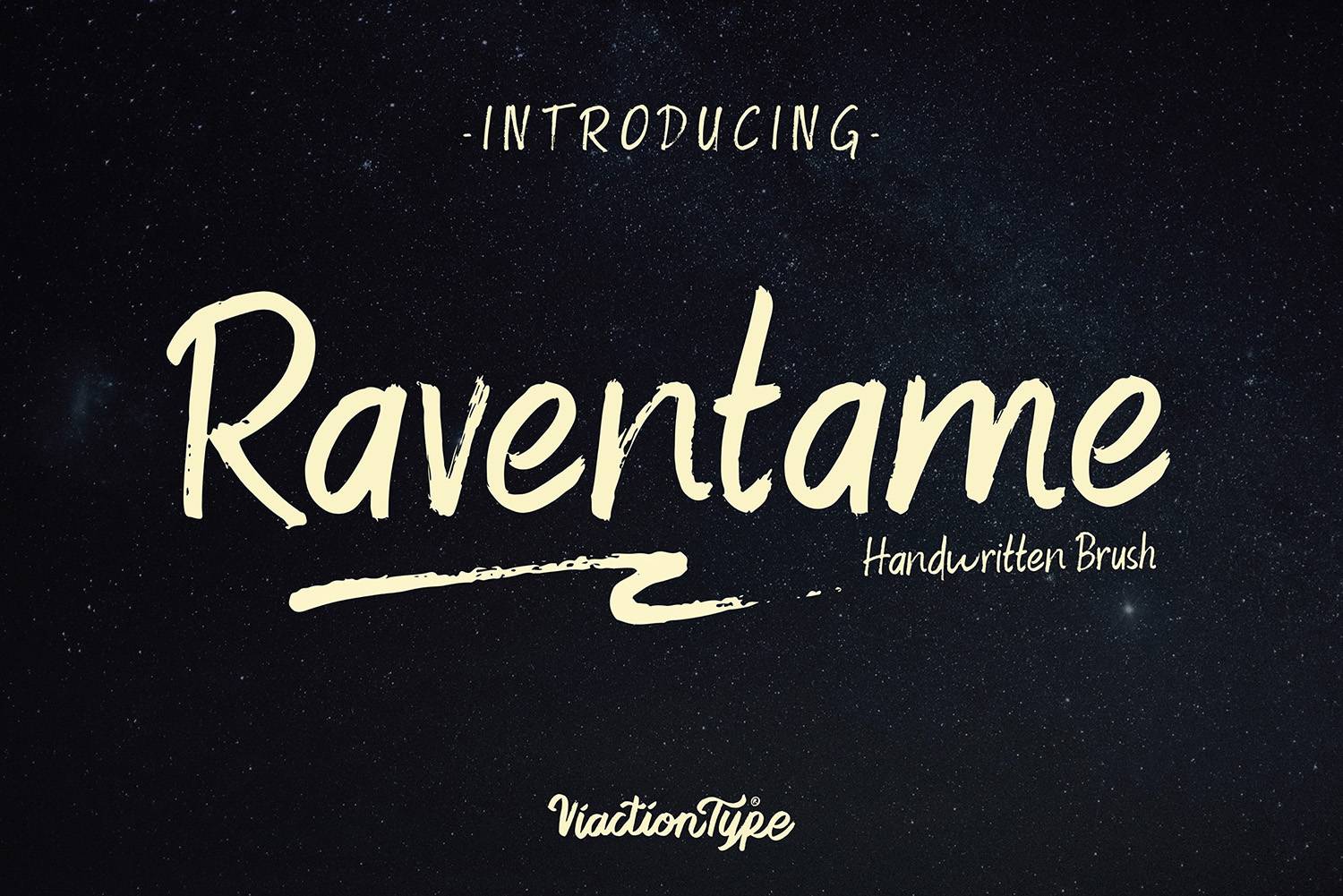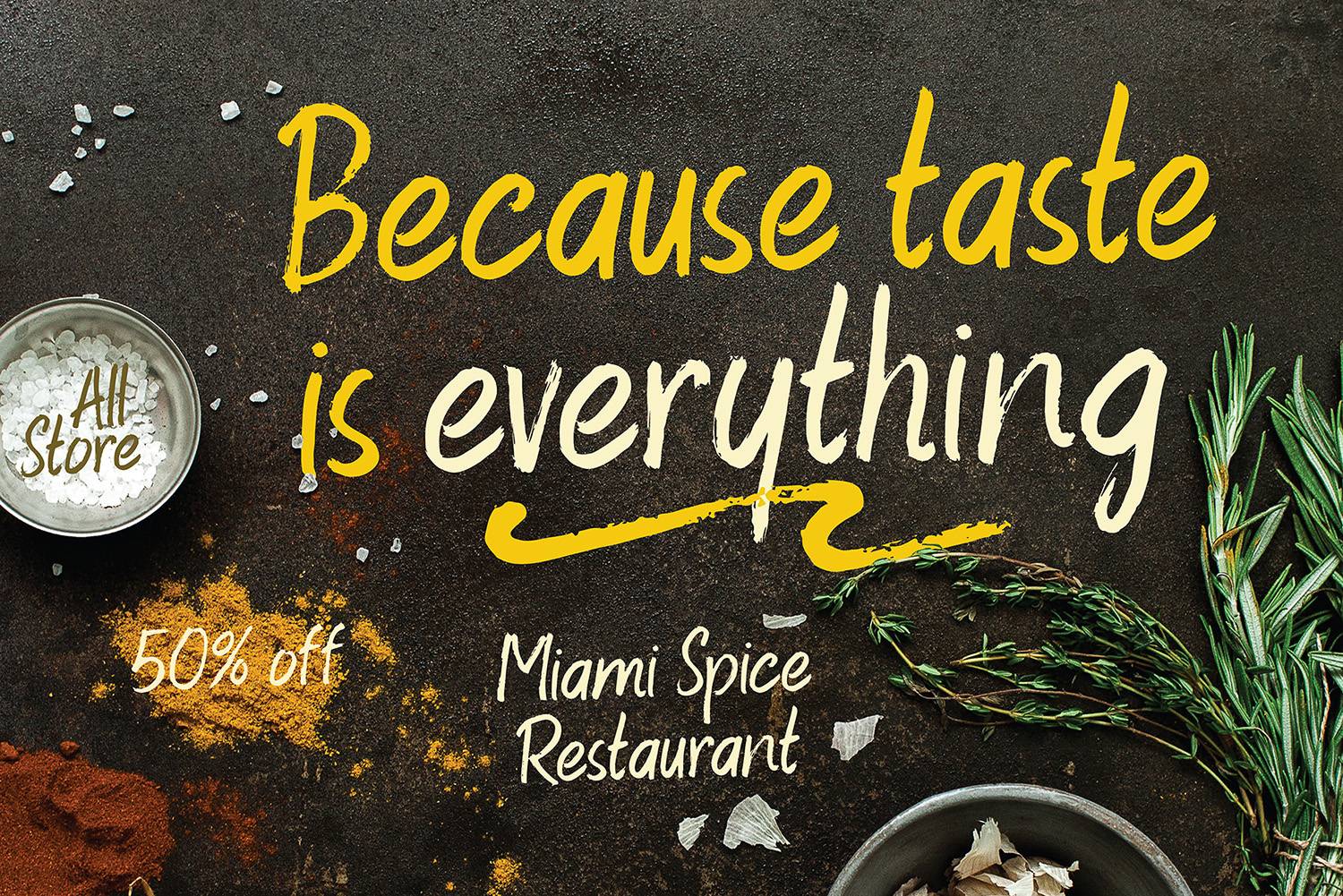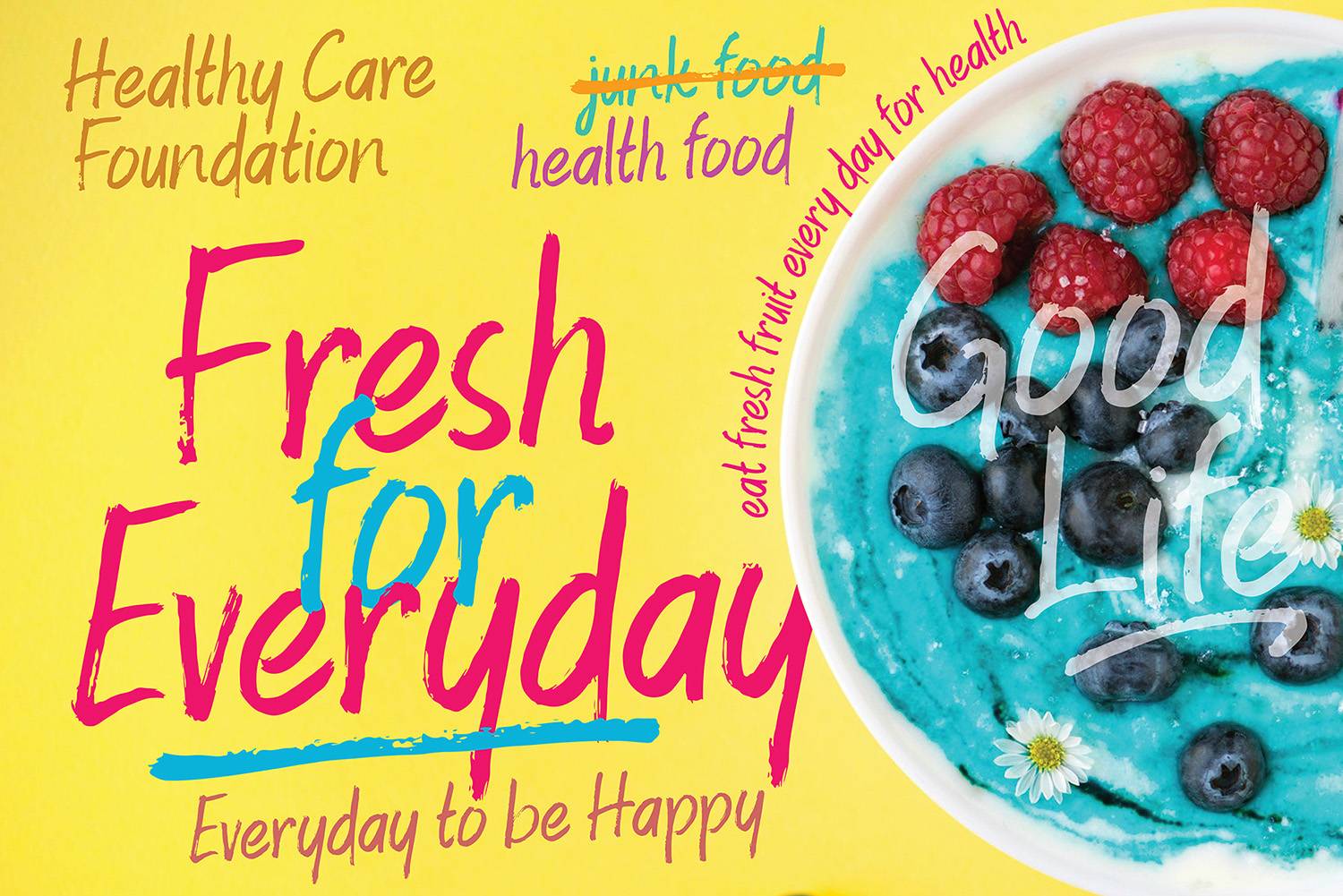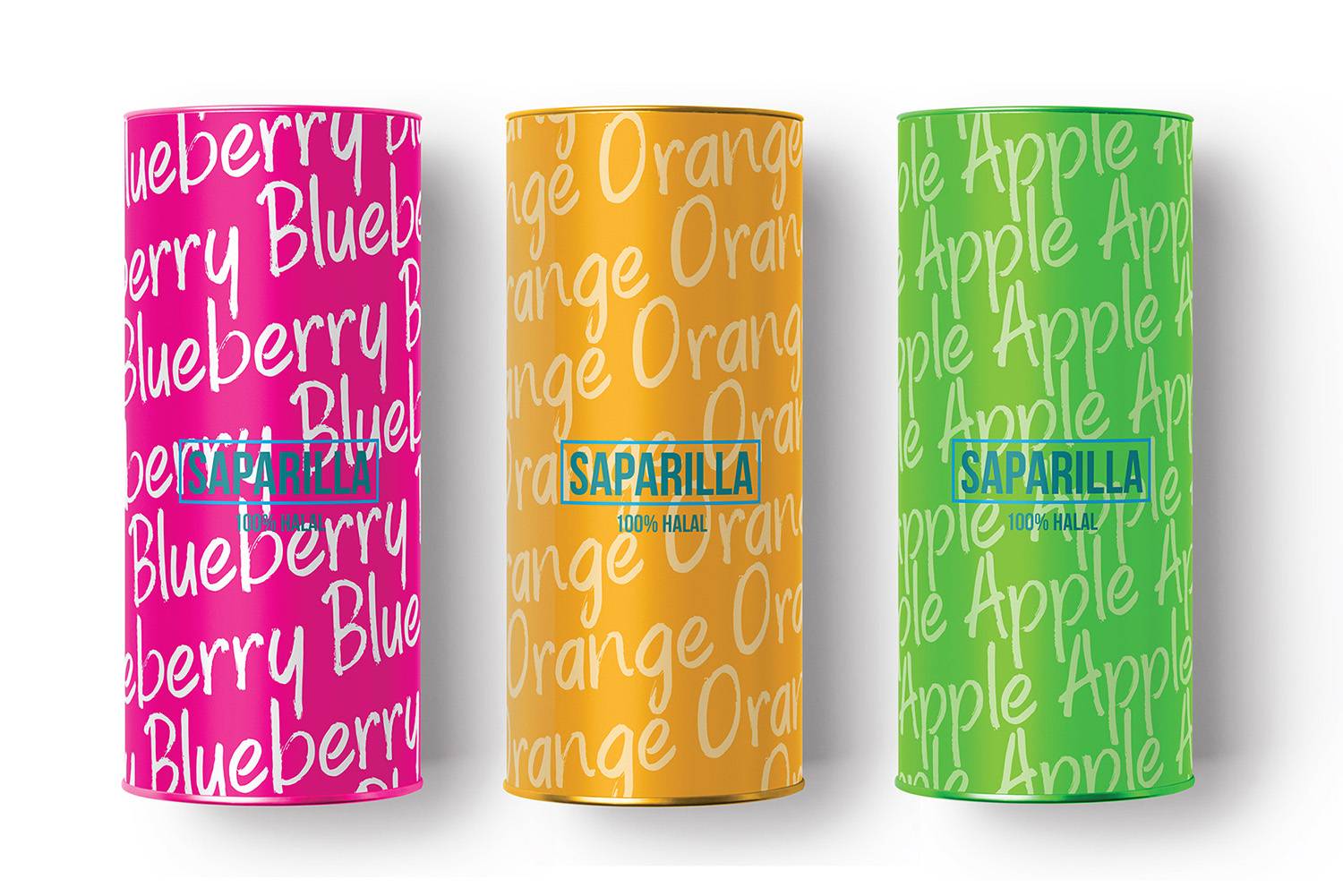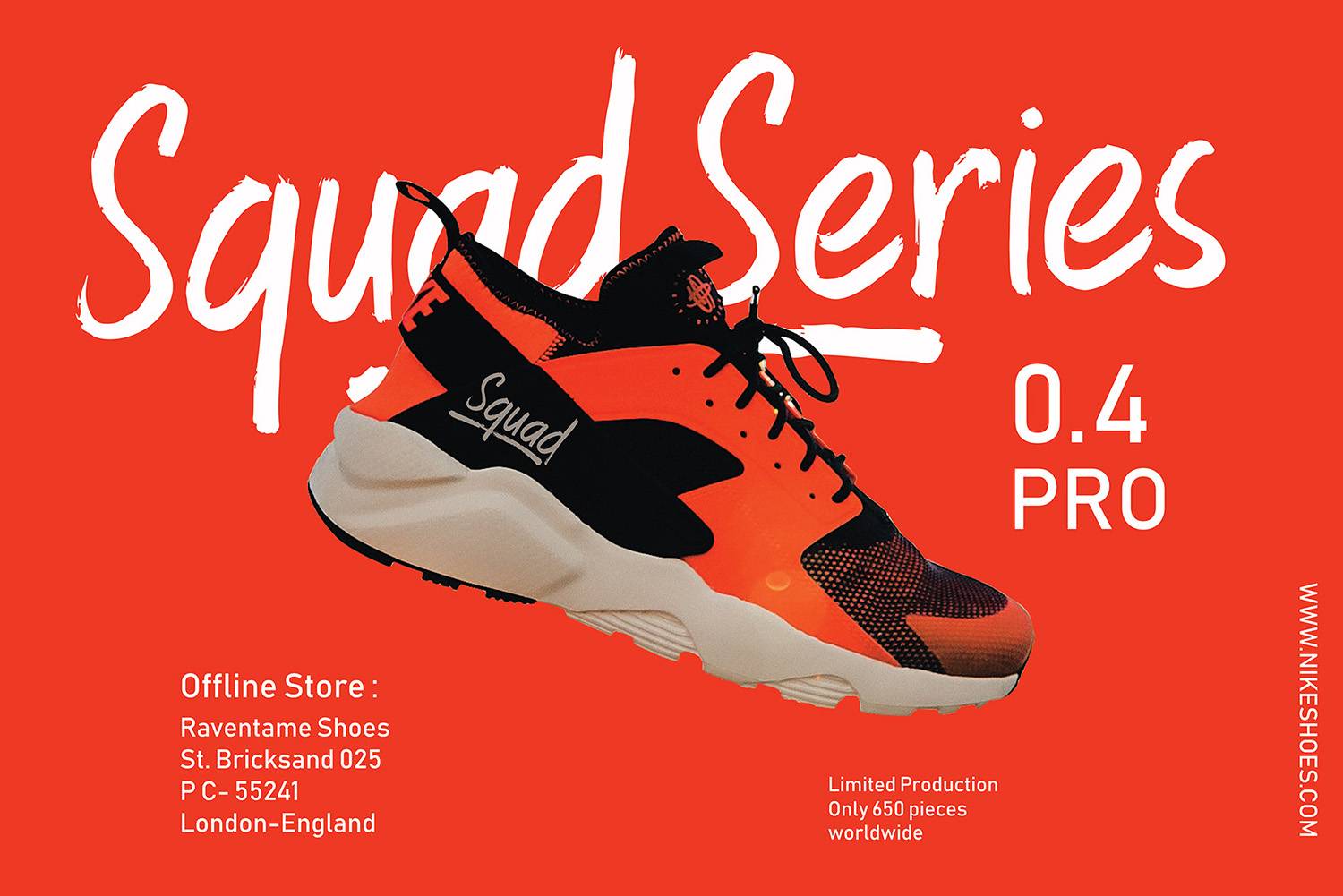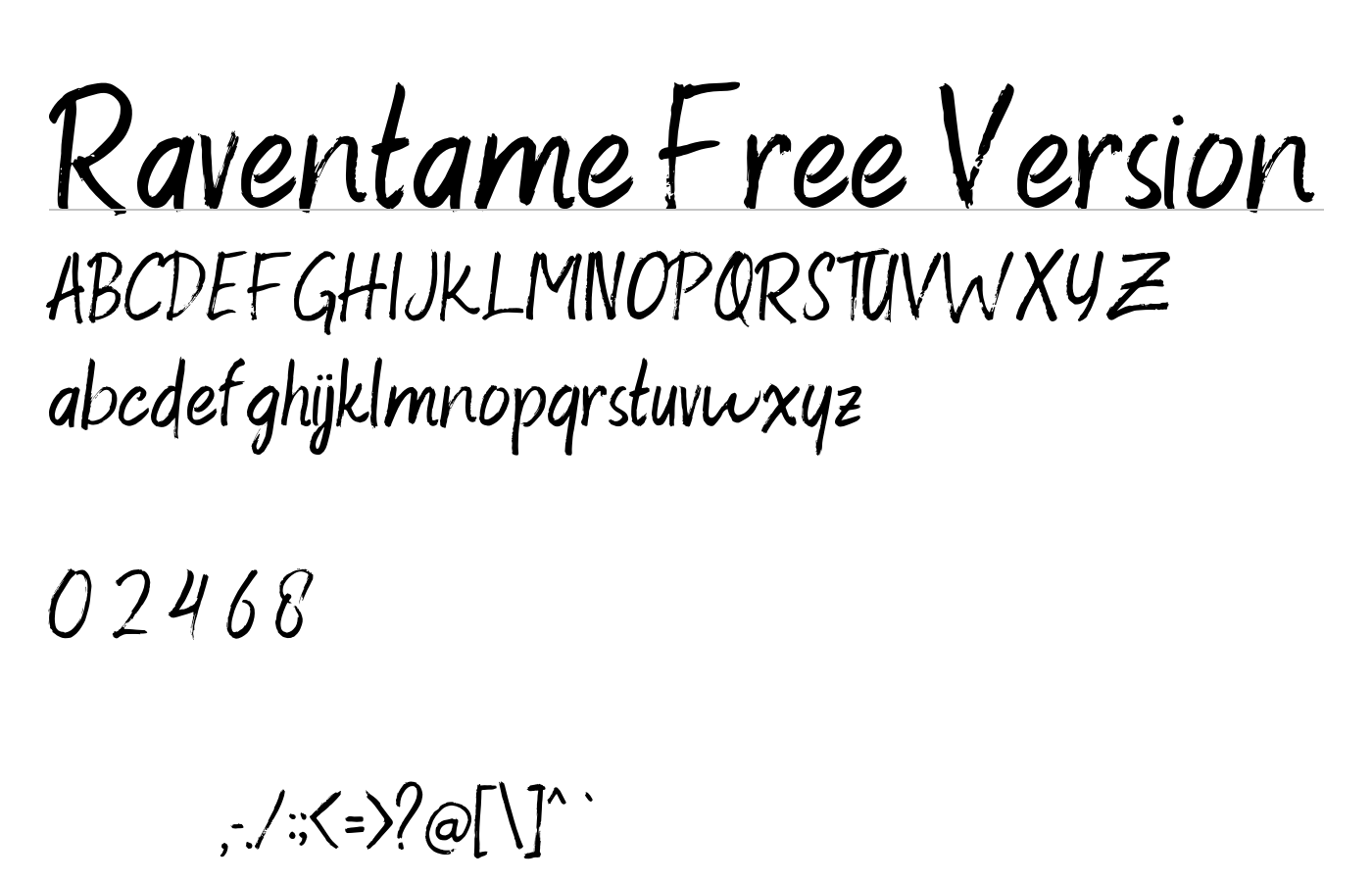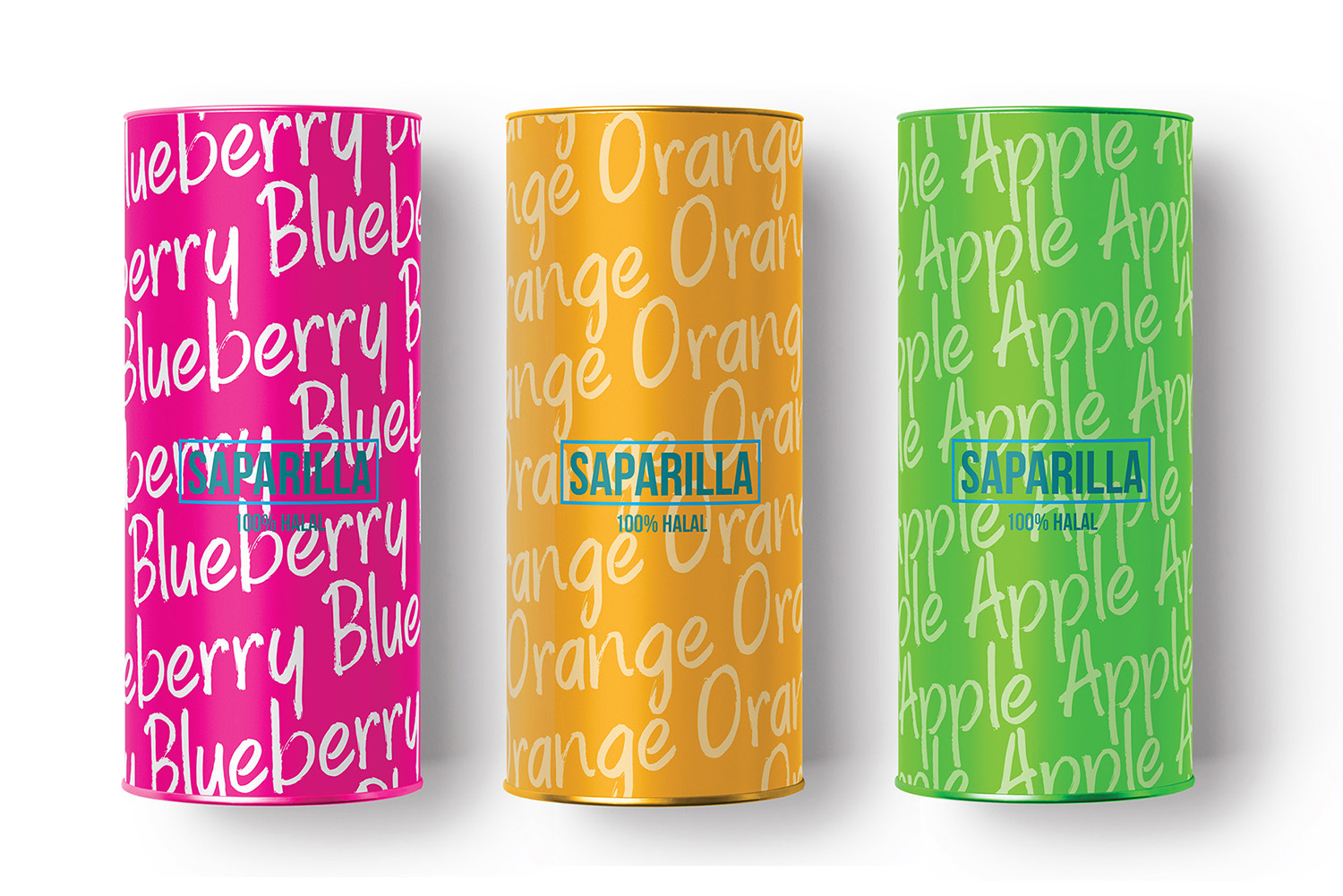
Raventame is a casual, handwritten sans serif font with a playful and organic feel. Its irregular, textured strokes and moderate x-height give it a lively, personal touch, making it perfect for informal branding, creative projects, and fun headlines. This font works well where a friendly, approachable vibe is desired, such as in invitations, posters, and lifestyle websites.
Raventame
About Raventame
| Font family | Raventame |
| Designer | Lukman Hidayat "Viaction Type Co" |